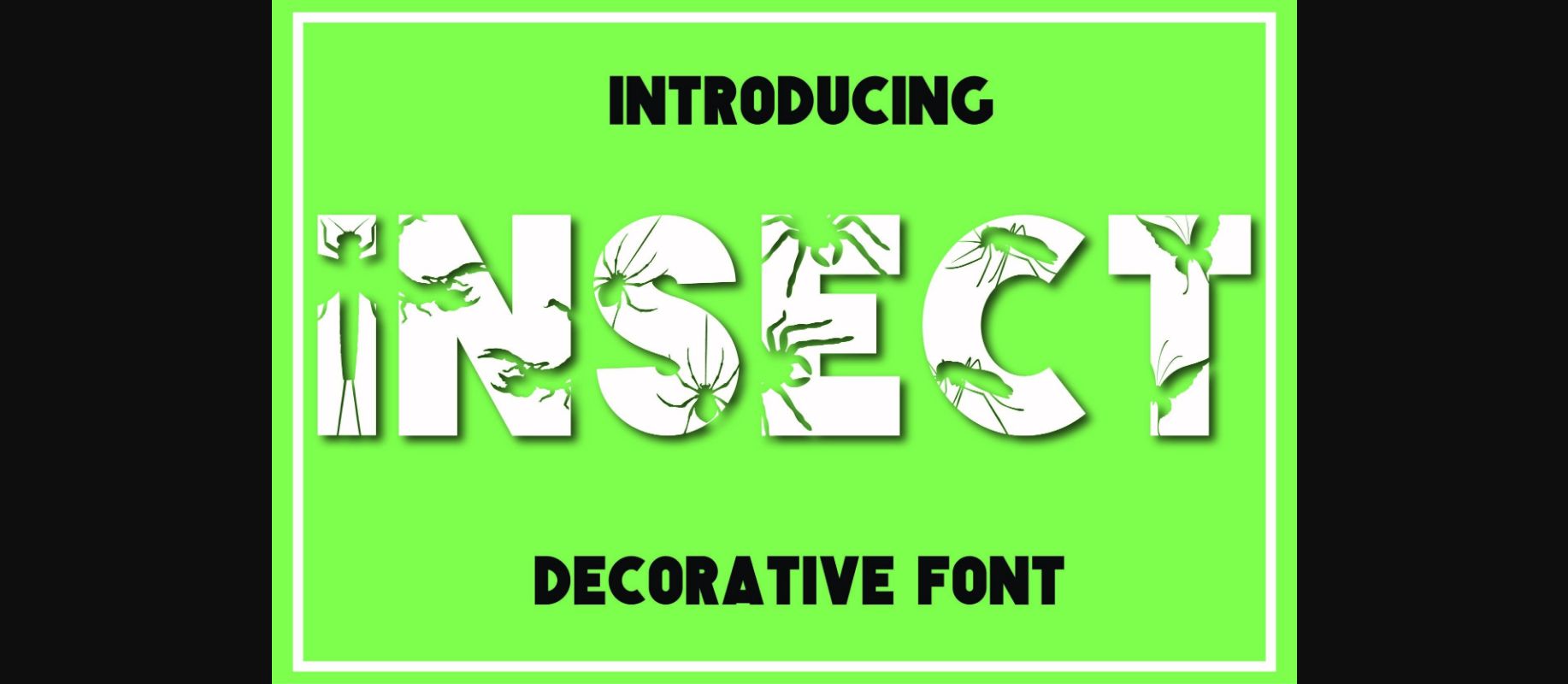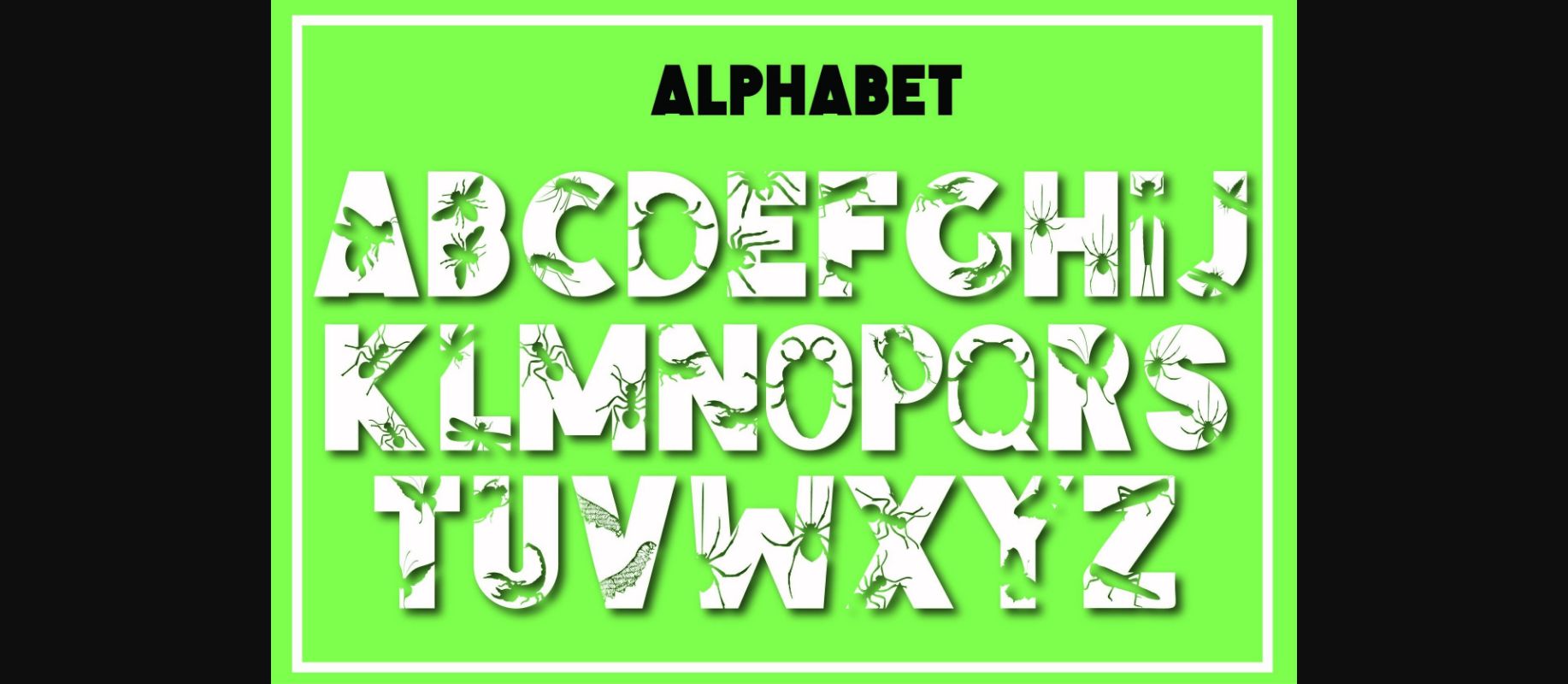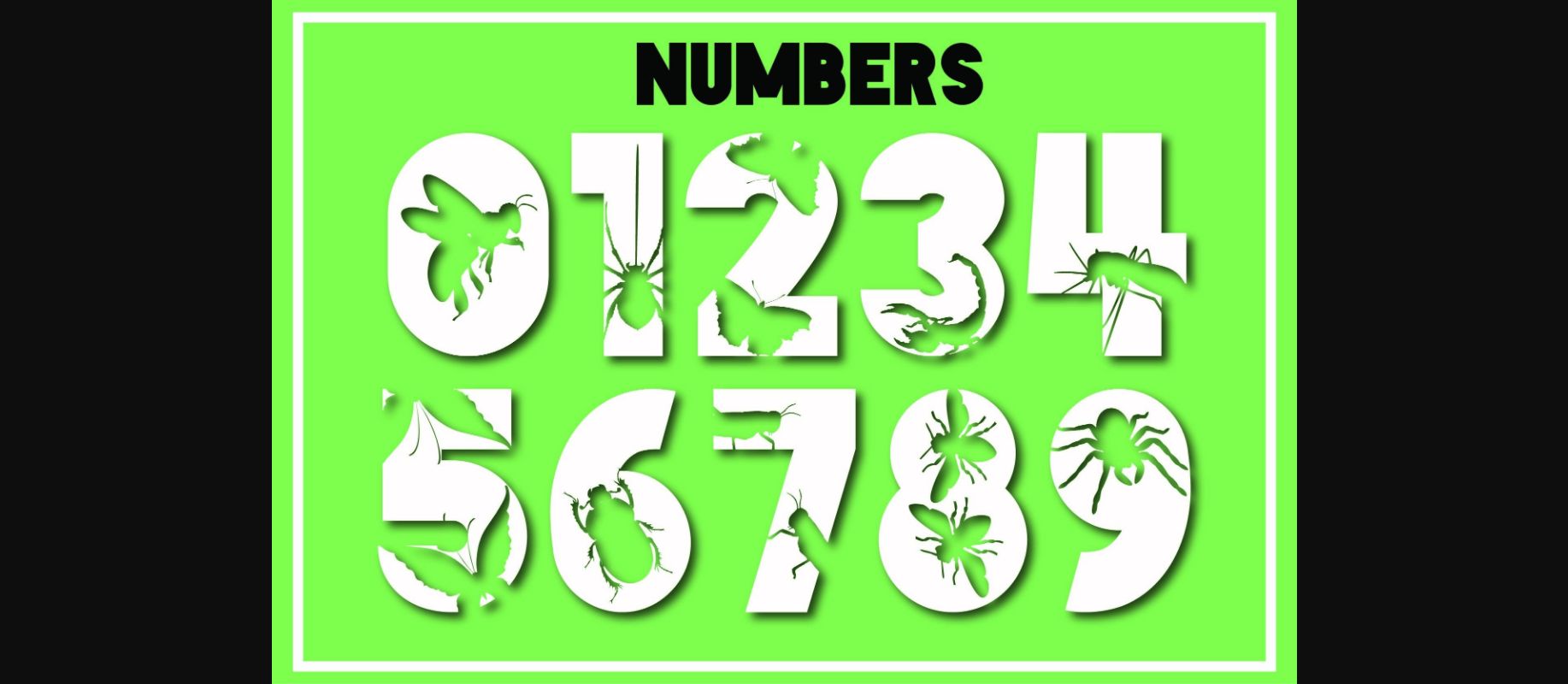
Insect Font
About Insect Font
Insect is a nice, uniquely shaped, and interesting decorative font that conveys joy and friendliness. Whether you’re using it for crafts, digital design, presentations, greeting cards, or t-shirts, this font has the potential to become your favorite go-to font!